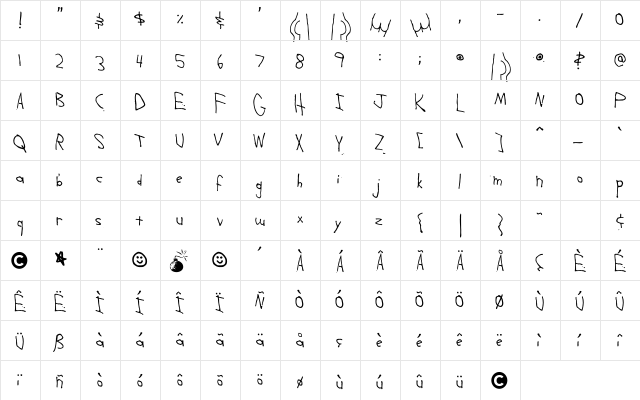
Ass Backwards Font Preview
Ass Backwards
| Style | Backwards |
Design Context for Ass Typeface
Ass is a composed and adaptable typeface that performs quietly and consistently across a wide range of design contexts.